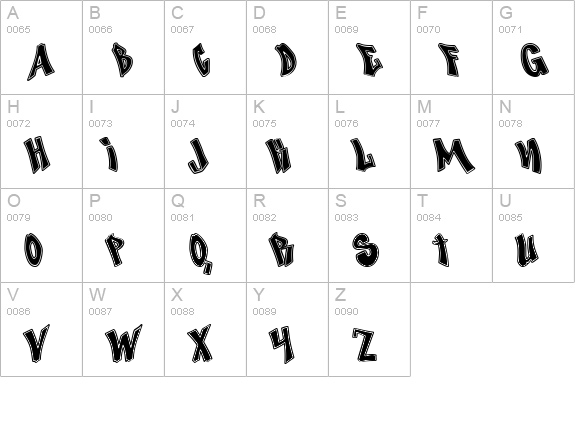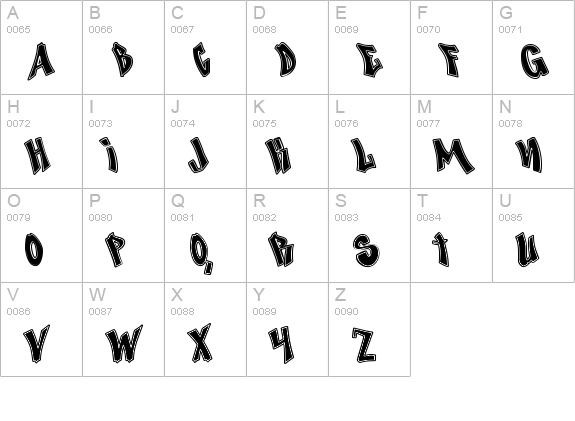
Nosegrind Demo Font Details
Nosegrind Demo font is a stylish and modern typeface that exudes creativity and personality. With its edgy and urban vibes, this font is perfect for projects that require a bold and eye-catching look. The sharp angles and unique design of Nosegrind Demo make it stand out from the crowd and add a touch of edge to any design. Best of all, Nosegrind Demo font is completely free to download at FontsMarket.com. So whether you're working on a poster, logo, or branding project, you can easily incorporate this striking font into your designs without breaking the bank. Don't miss out on the opportunity to elevate your projects with the distinctive style of Nosegrind Demo font. Download it today and let your creativity run wild!